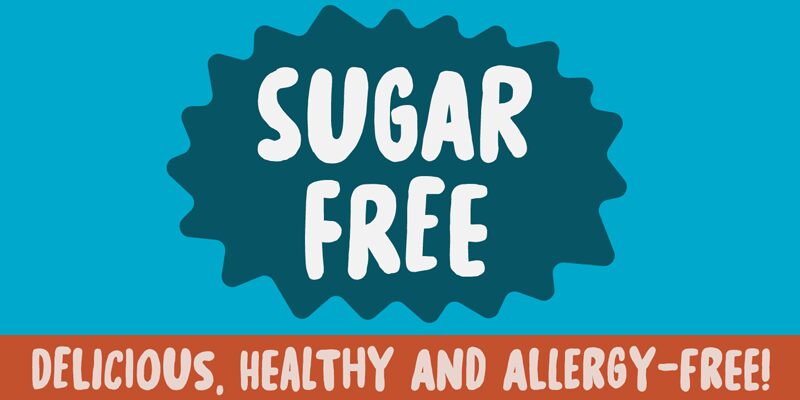
Sugar is a bold and condensed display font designed by Pizzadude, perfect for adding a touch of playfulness to your projects. With its cartoon style, Sugar is an ideal choice for children's book covers, animated film posters, and video game titles. This font will captivate young audiences with its lively and vibrant appearance. Whether you're designing a logo for a candy store or creating eye-catching packaging for sweets, Sugar will bring sweetness and excitement to any project in need of a fun and energetic font.